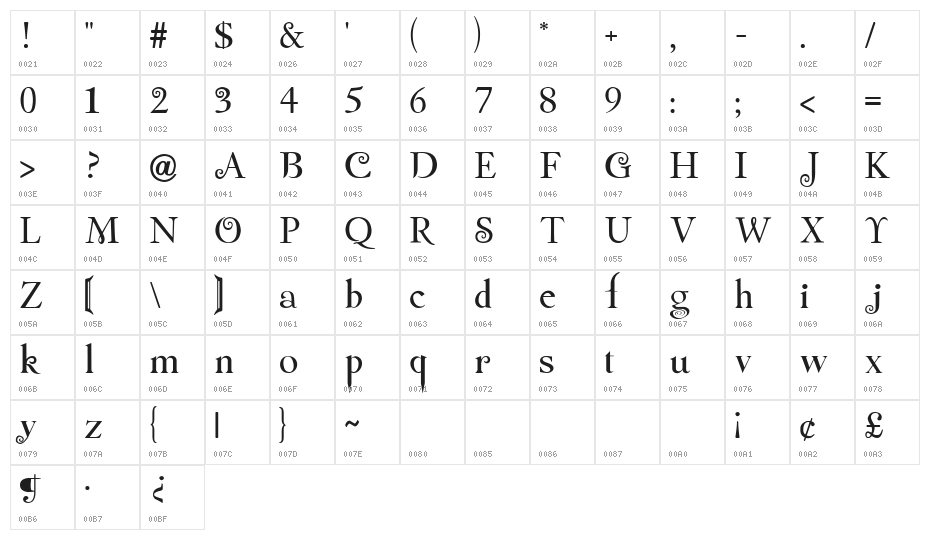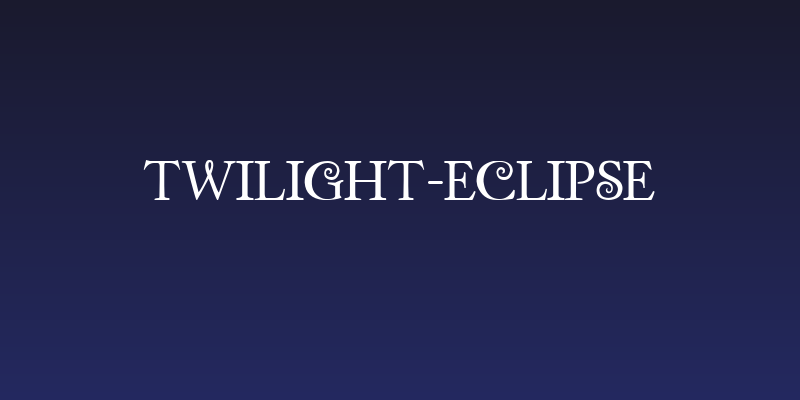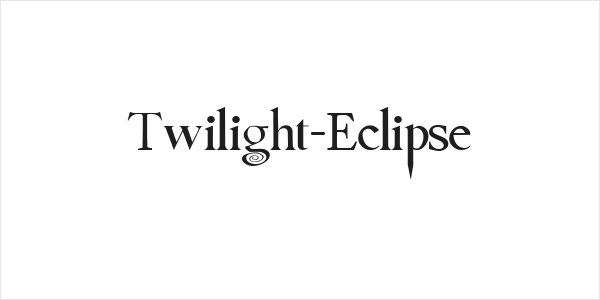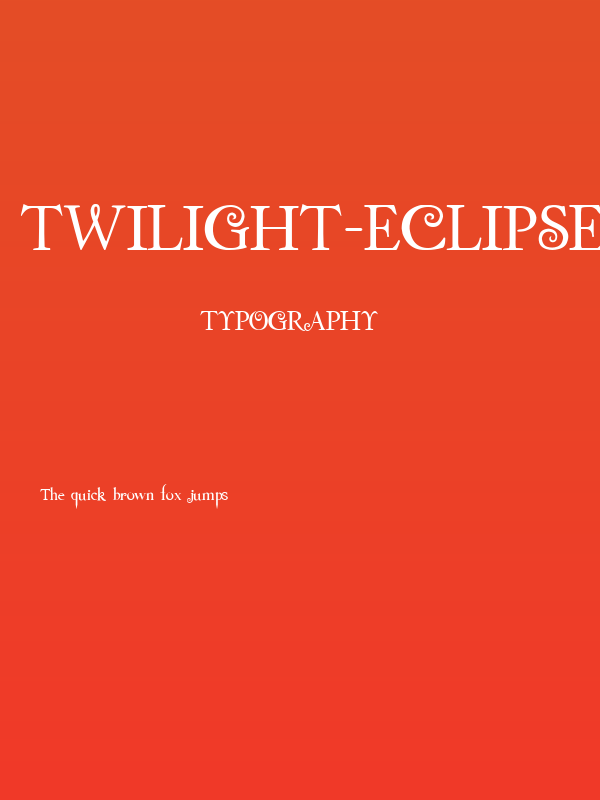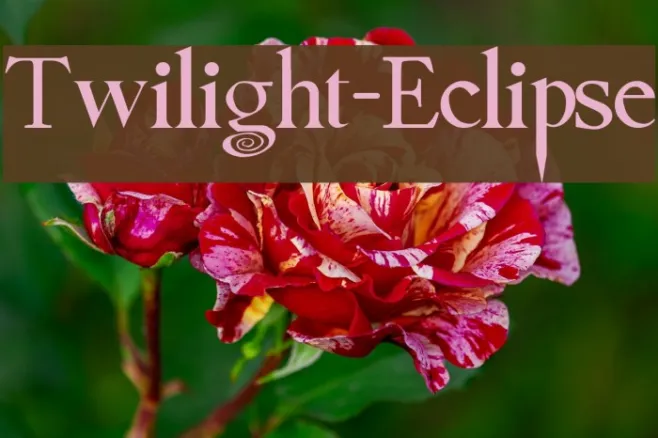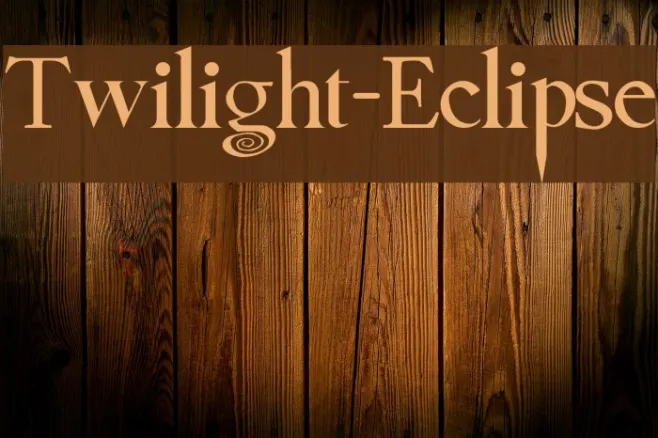
Twilight-Eclipse Font
Twilight-Eclipse Description
This font features a whimsical and decorative style, characterized by its unique swirls and curls integrated into the letterforms. The uppercase letters exhibit a playful elegance with flourishes that add a touch of fantasy, while the lowercase letters maintain a consistent style with subtle embellishments. The numerals are distinct and maintain the decorative theme, ensuring readability with a creative twist. Special characters are designed to complement the overall aesthetic, making this font suitable for artistic and expressive projects.
| Proposed Projects | Ideal for fantasy-themed designs, book covers, invitations, and artistic branding. |